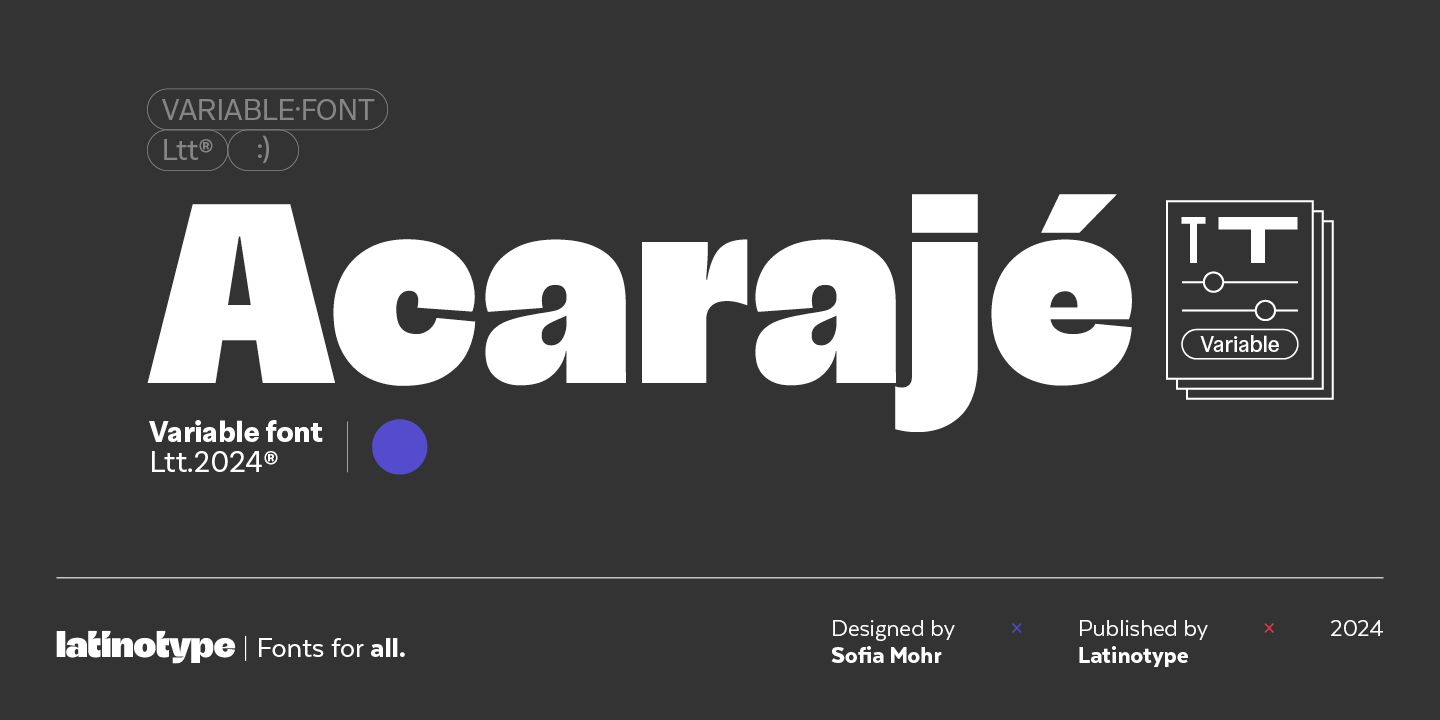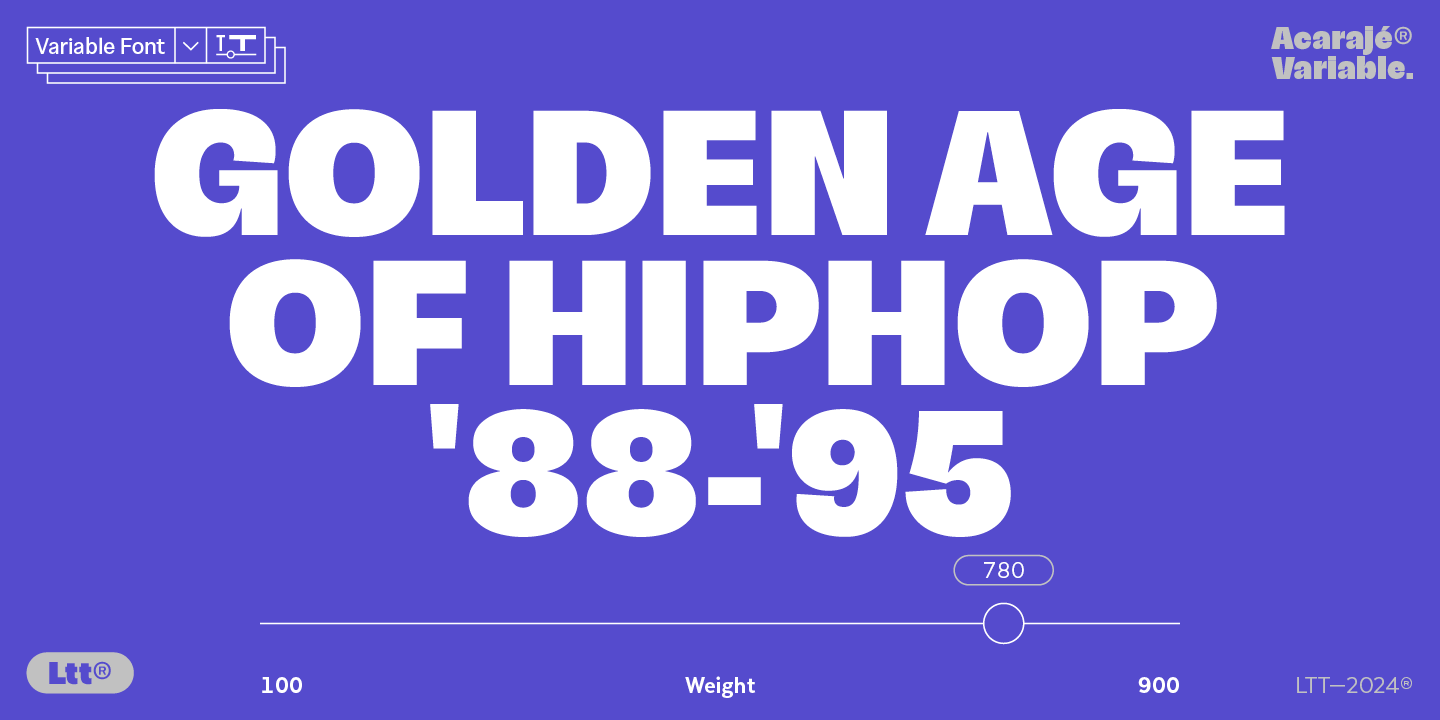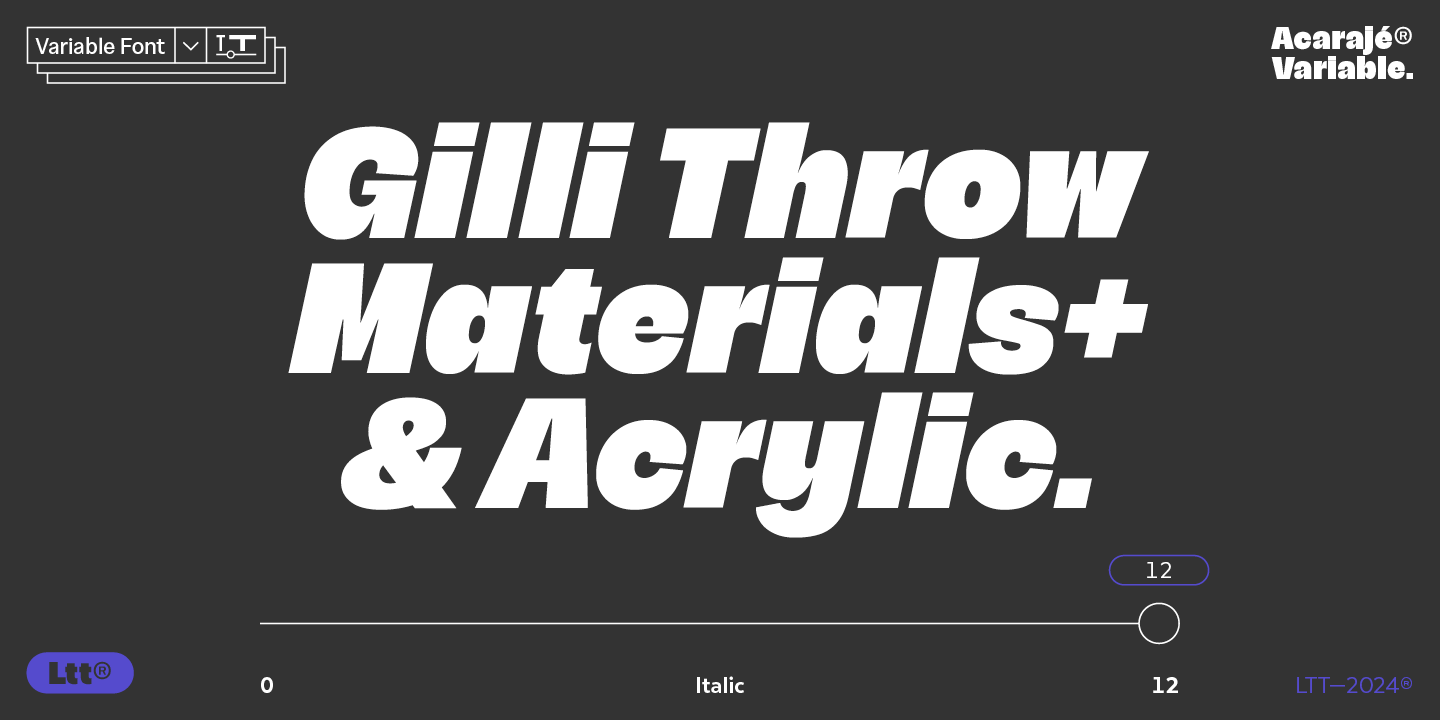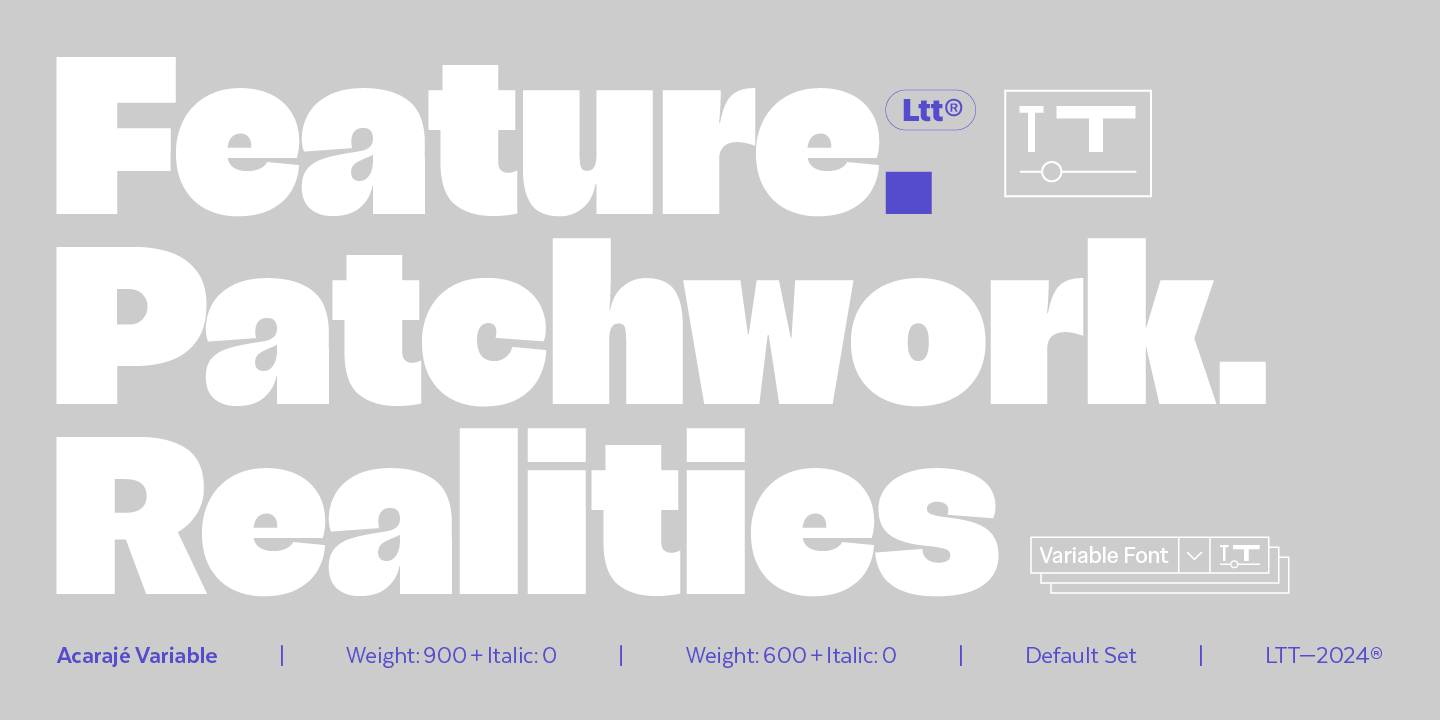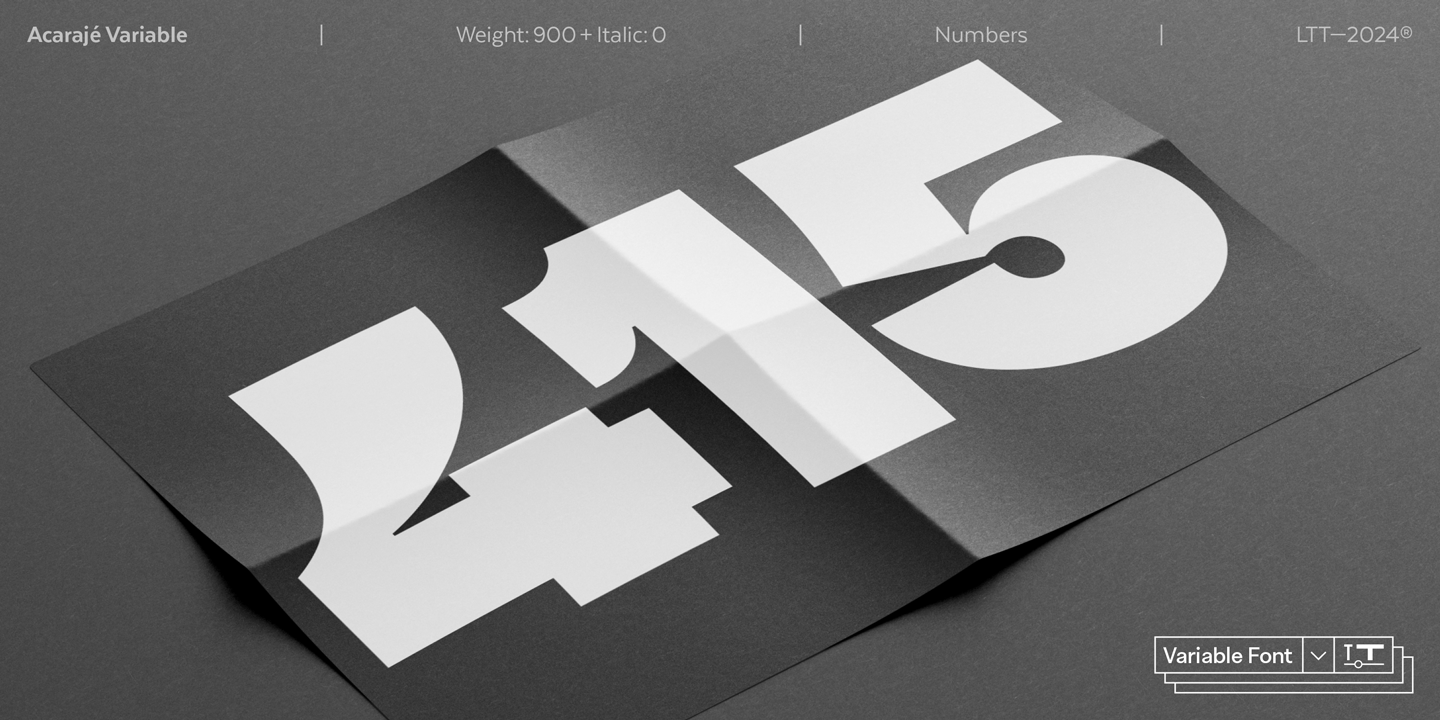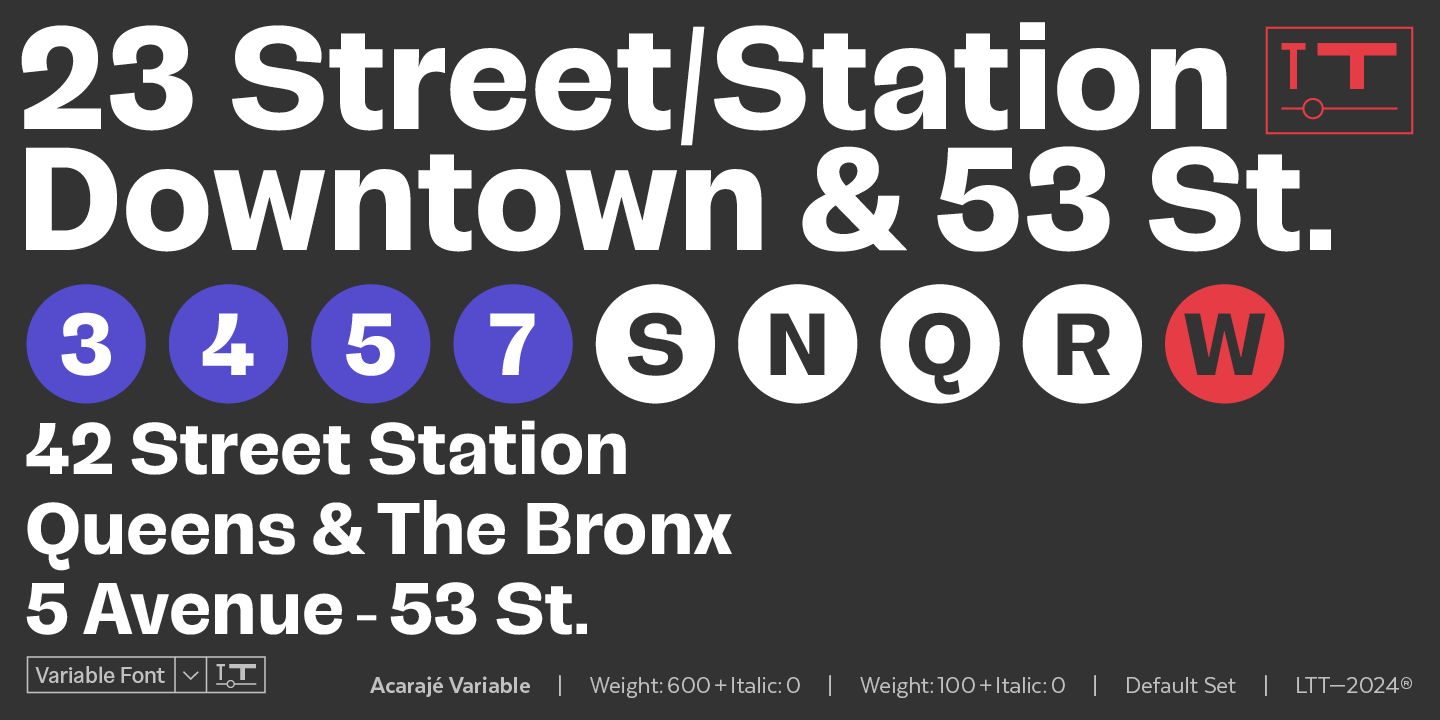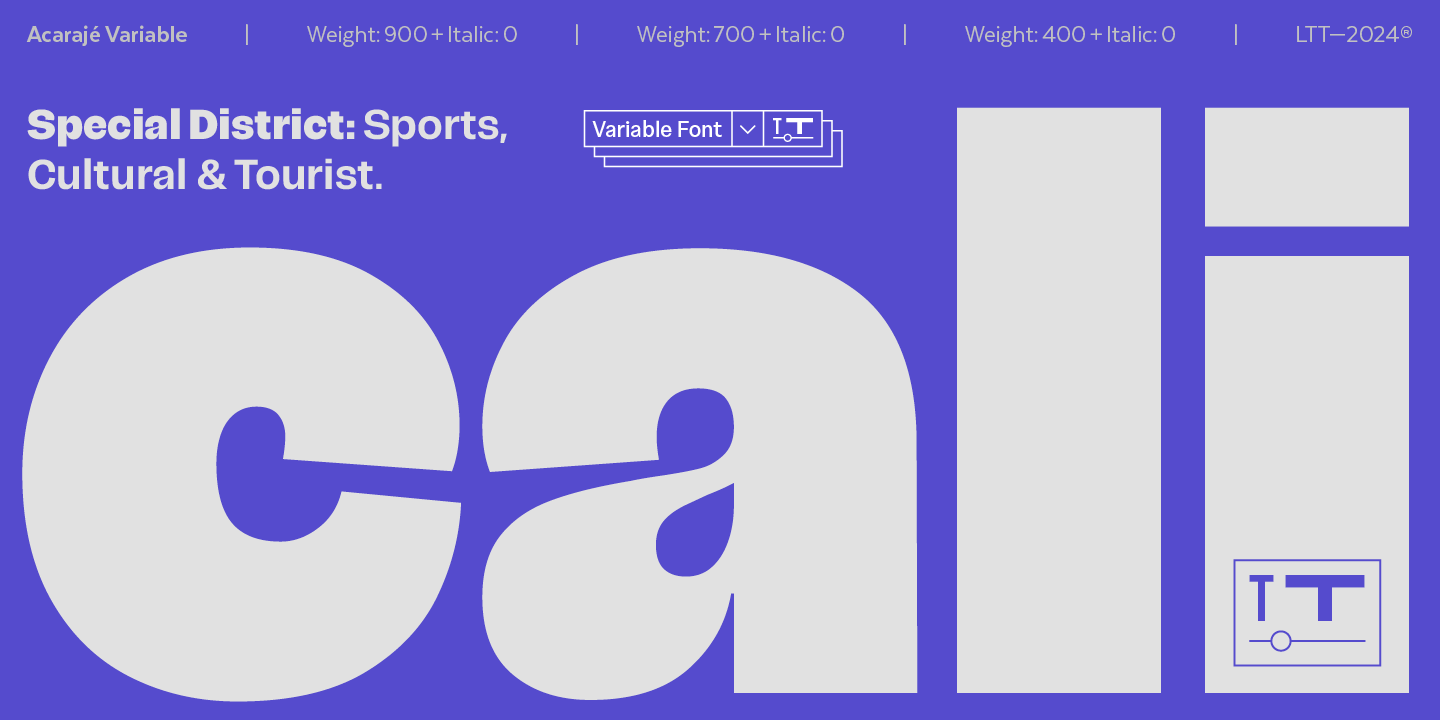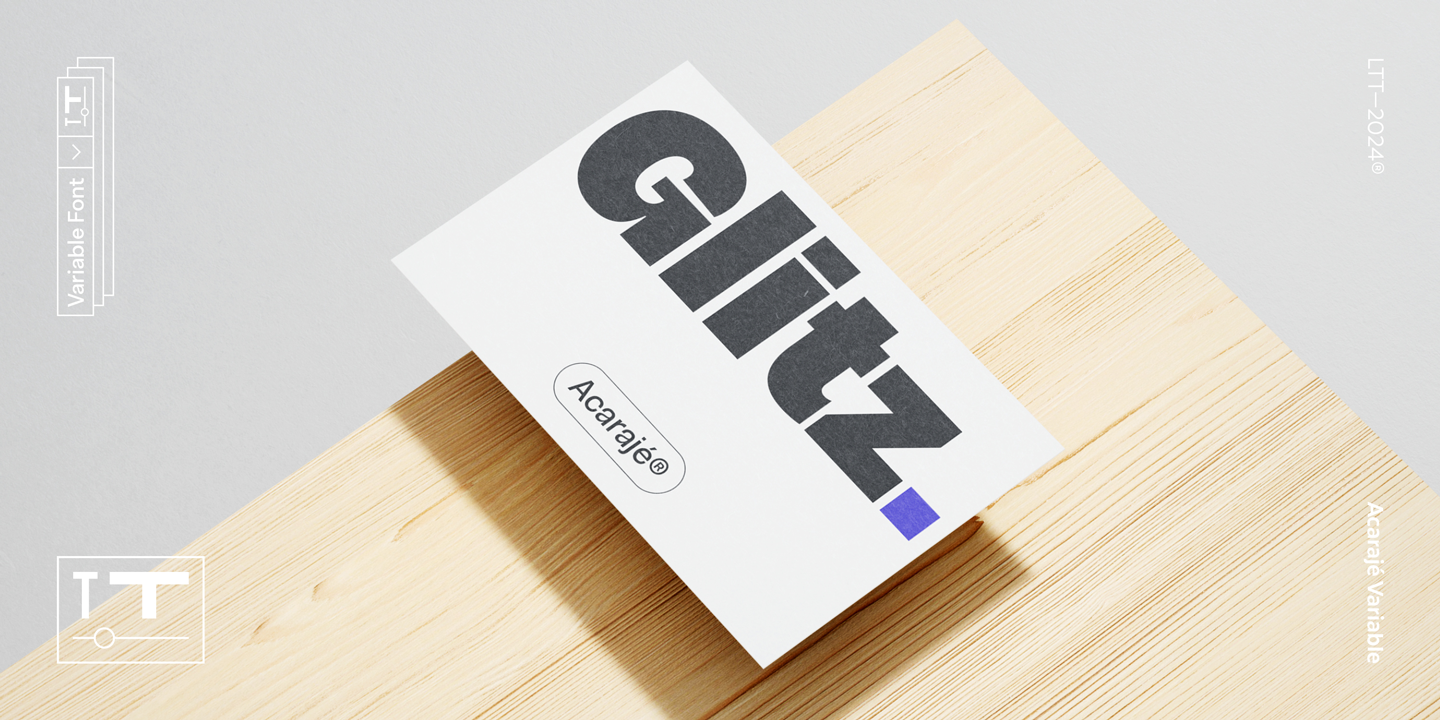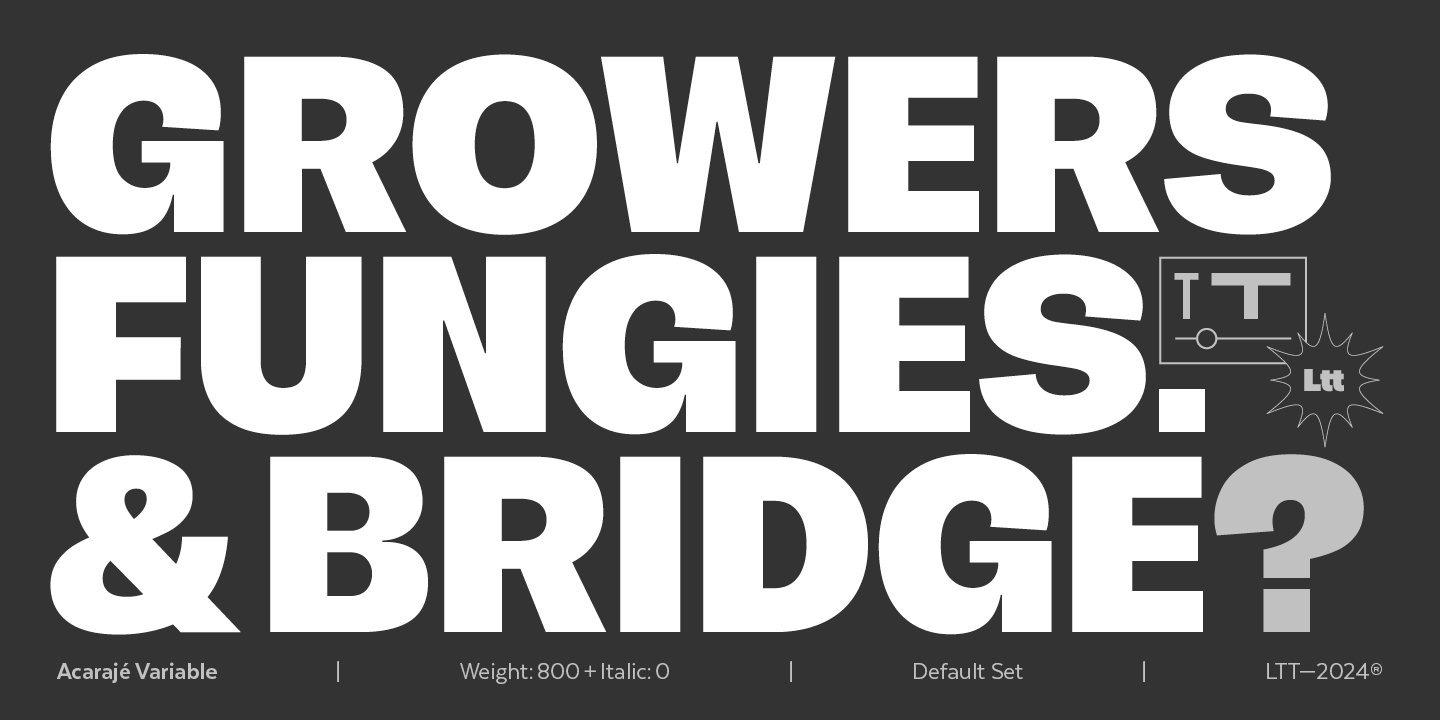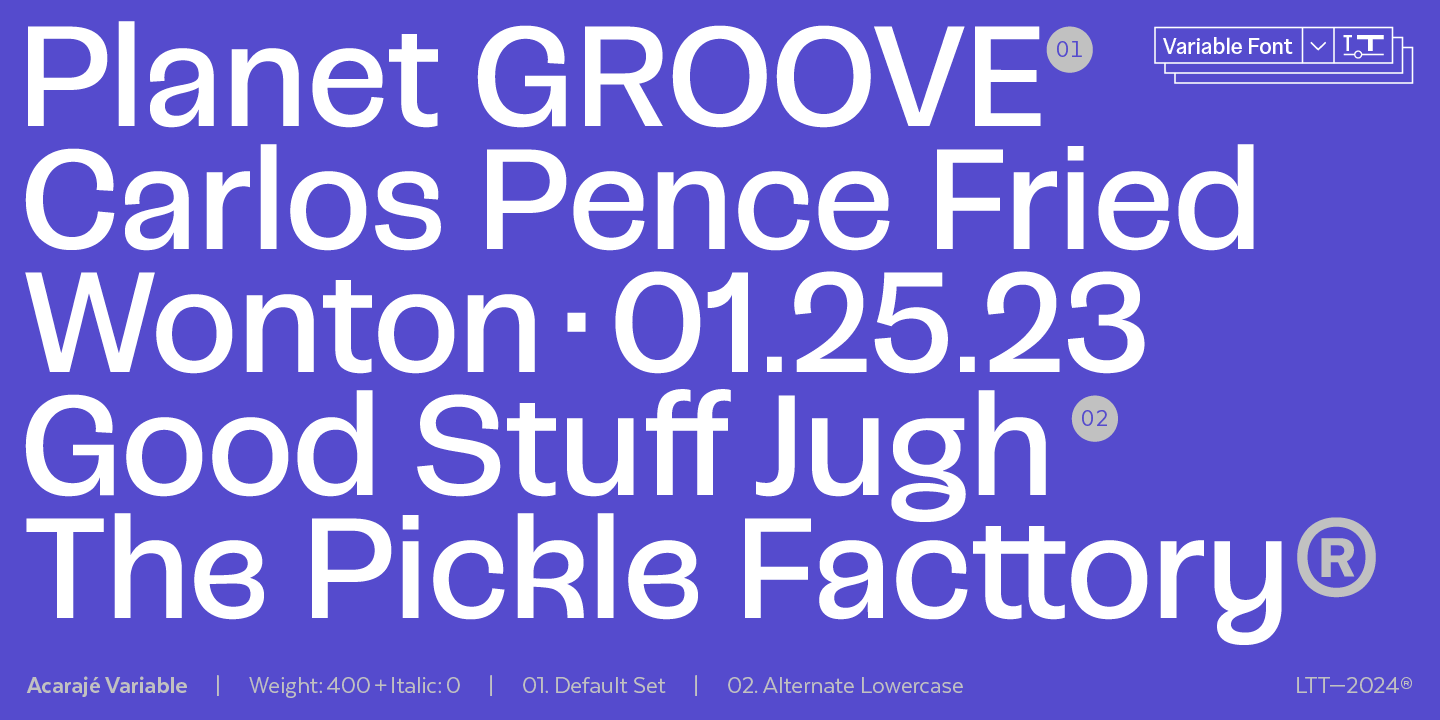
With this variable version, Acarajé offers incredible flexibility for your designs. From bold headlines to legible body text, this typeface easily adapts to a wide variety of creative applications. Its ability to maintain a consistent and attractive appearance in different sizes and contexts make it a powerful tool to communicate messages with style and clarity.
Acarajé not only provides a contemporary and dynamic look to your compositions, but also ensures a complete visual experience by offering alternative glyphs that complement the system. It is ideal for projects that require a typeface that combines functionality with personality, innovation and style.